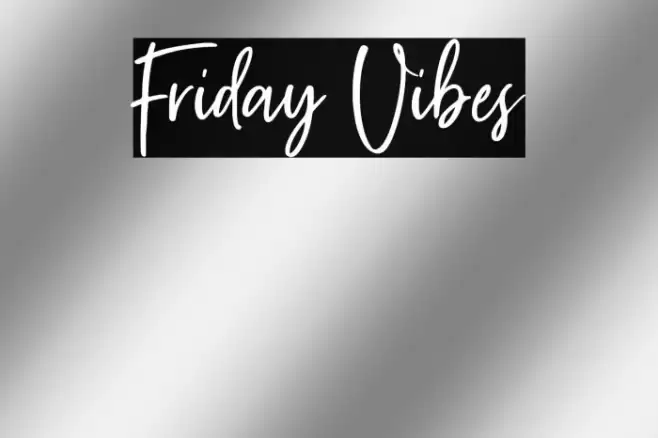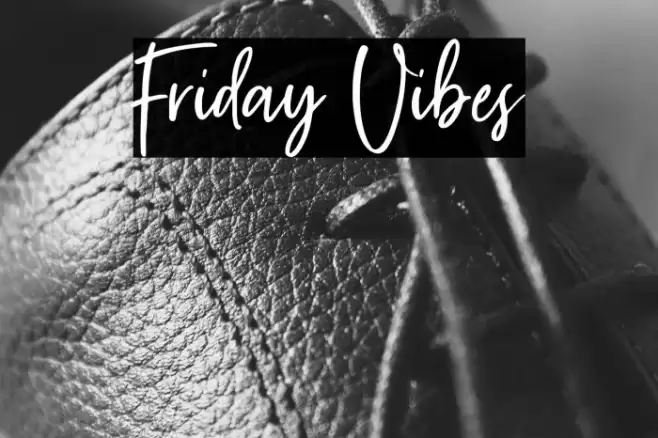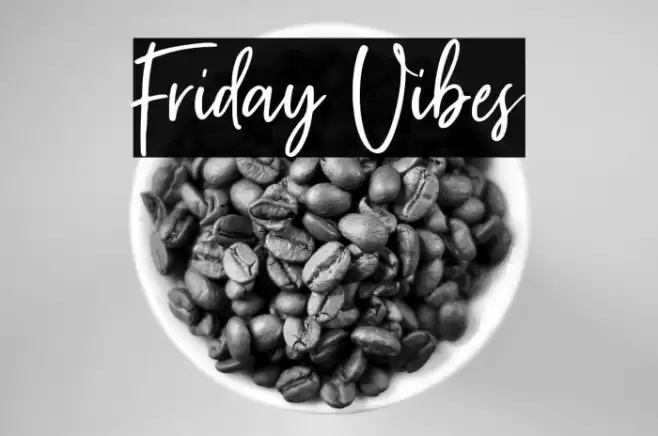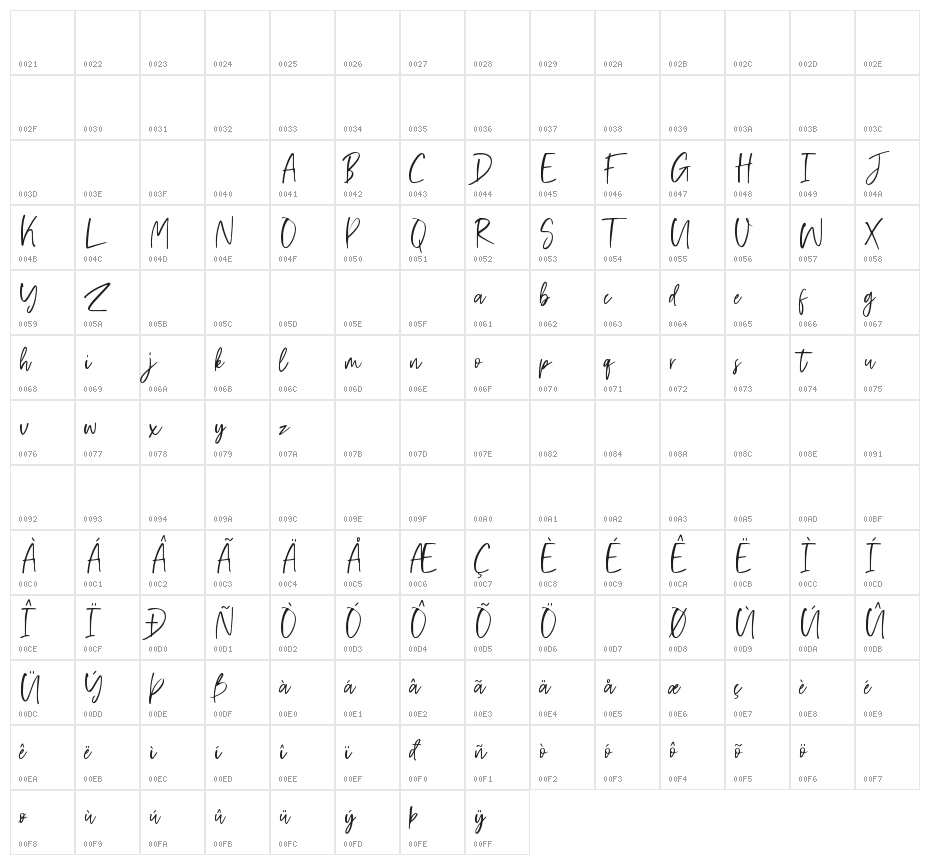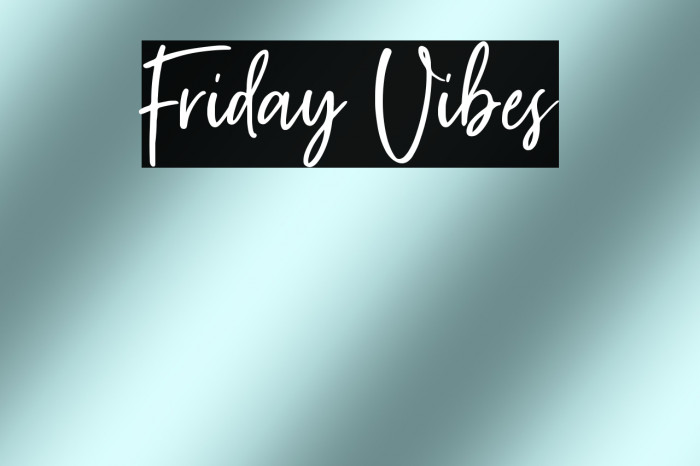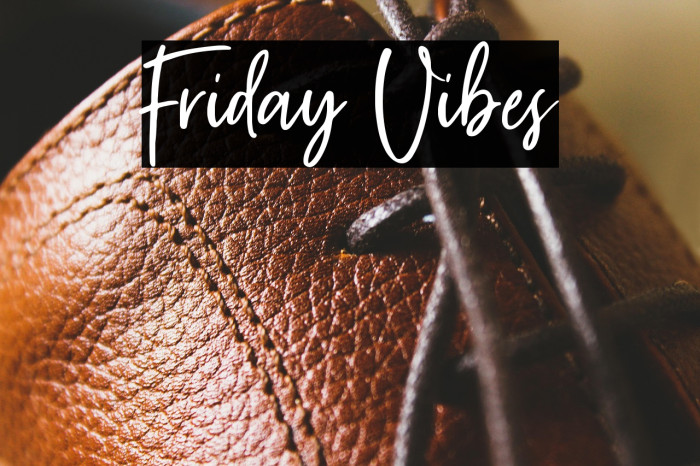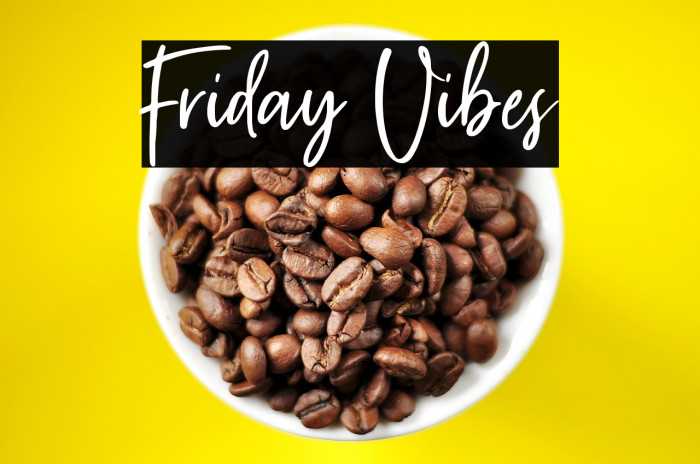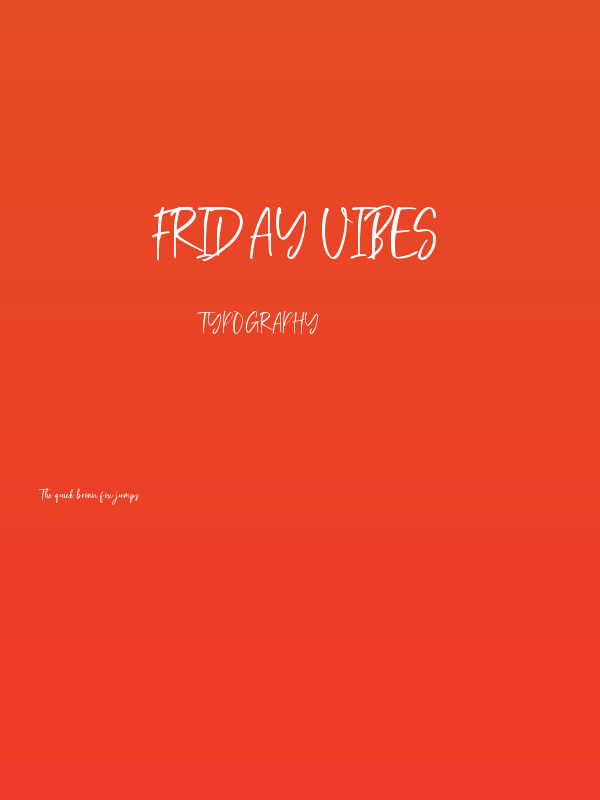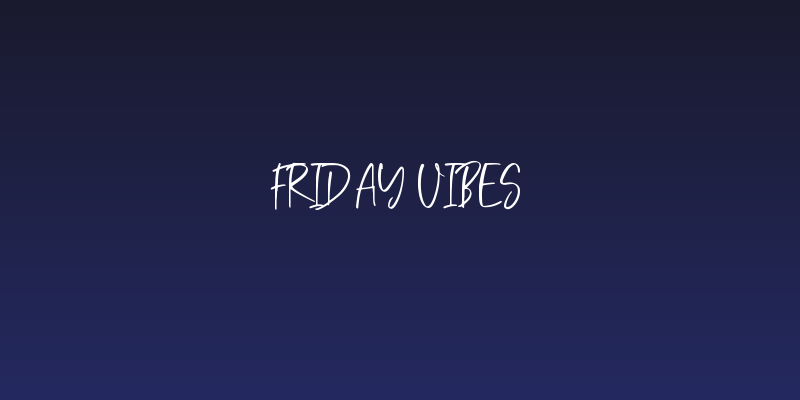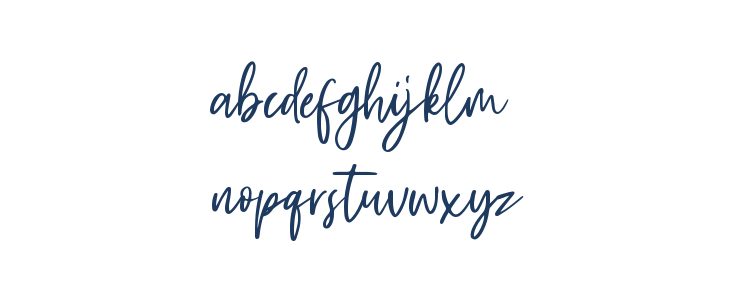
Friday Vibes Font
Friday Vibes Description
This font exudes a casual and playful vibe, characterized by its handwritten style. The letters are slightly slanted, giving it a dynamic and lively appearance. The strokes are smooth and fluid, with varying thickness that adds a touch of elegance and spontaneity. The uppercase letters are bold and prominent, while the lowercase letters maintain a consistent flow, enhancing readability. This font is perfect for projects that require a personal and informal touch, such as invitations, greeting cards, and social media graphics.
A playful, handwritten font with a casual and dynamic style from Uncategorized fonts.
- Proposed Projects: Ideal for invitations, greeting cards, social media graphics, and personal branding.
- Overall Style: Casual
- Use Case: Logos, Headlines, Informal Text